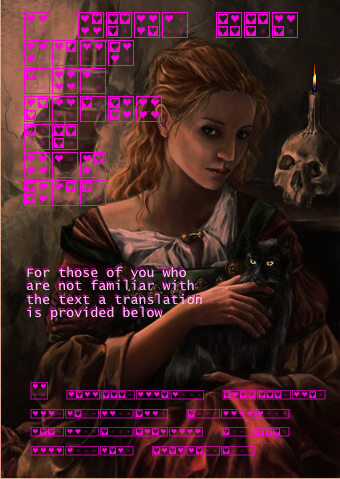
Thank you for acknowledging my "Lovers Morse code" font in the comments about the competition. I know most of my fonts are a little bizarre but I am creating them so that these rare(ish) writing systems are available as downloadable fonts for those few people who need them. I hate to frighten everyone but there are more to come ... :)